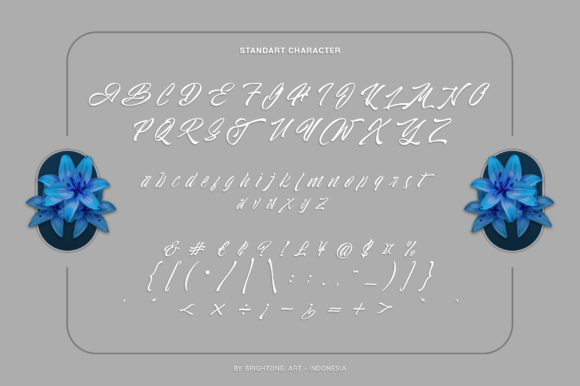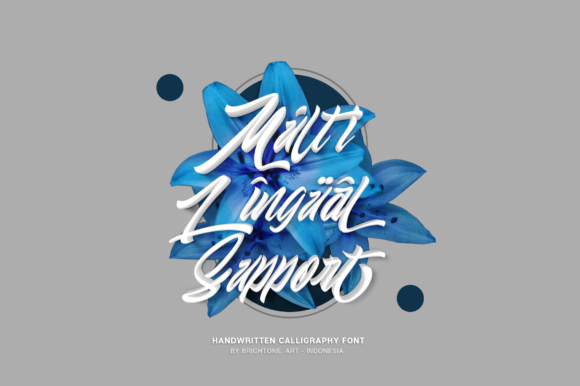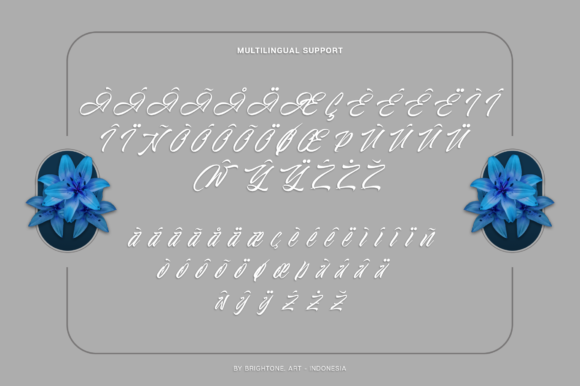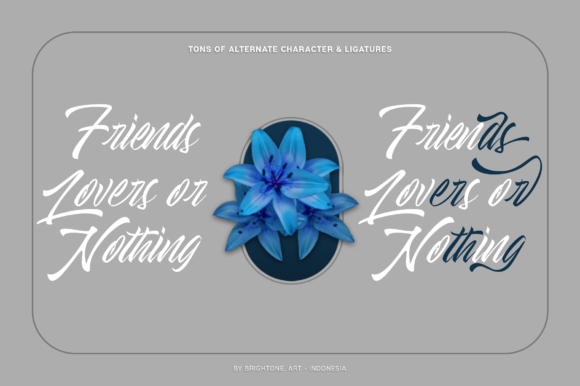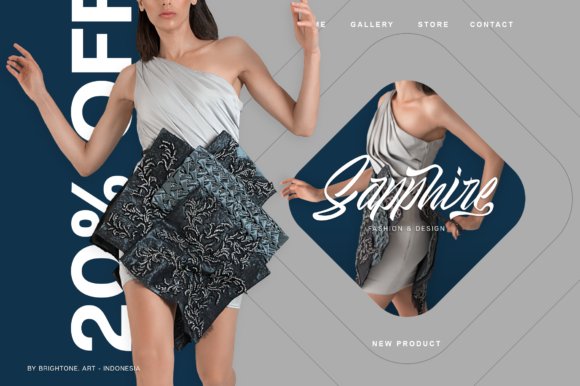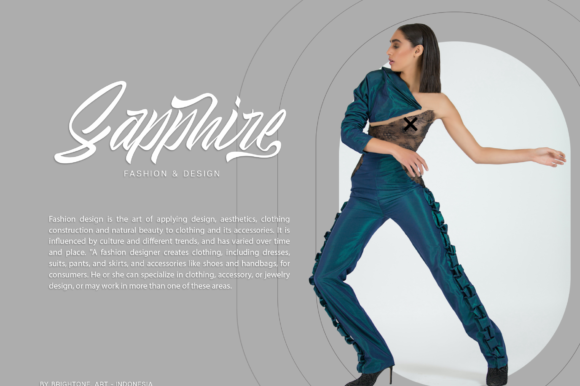
Discover the Elegance of Atlantic Extended Font: Elevate Your Designs with Sophistication
In the world of typography, a font can make or break the aesthetic of a design. For those seeking a script that exudes elegance and sophistication, the Atlantic Extended Font is an exceptional choice. This beautiful script font is not only exquisite and perfectly cursive but also versatile, making it an ideal addition to any designer’s toolkit. Whether you’re working on branding, t-shirt designs, lettering projects, logos, or enhancing your Instagram posts and stories, Atlantic Extended is poised to elevate your creative endeavors.
The Characteristics of Atlantic Extended Font
Atlantic Extended is distinguished by its flowing, cursive script that adds a touch of luxury and refinement to any project. Its elegant strokes and extended letterforms make it perfect for designs that require a sense of grandeur and sophistication. The font’s versatility is one of its most compelling features, allowing it to be used across various mediums, from digital platforms to print materials.
Practical Applications of Atlantic Extended
The applications of Atlantic Extended Font are vast and varied. Here are some of the key areas where this font can make a significant impact:
- Branding: Establish your brand’s identity with a sophisticated and elegant font that communicates luxury and quality.
- T-Shirt Design: Create eye-catching and unique apparel designs that stand out with the distinctive style of Atlantic Extended.
- Lettering Design: Add a personal touch to your lettering projects with the beautiful, cursive script of Atlantic Extended.
- Logo Design: Craft memorable and impactful logos that embody the essence of your brand, using a font that is both elegant and versatile.
- Instagram Posts and Stories: Enhance your social media presence with stylish text that complements your visual content, making your posts and stories more engaging.
The Advantage of PUA Encoding
Atlantic Extended Font comes with the advantage of PUA (Private Use Area) encoding. This feature allows designers to access a wide range of glyphs and swashes easily, providing greater flexibility and creativity in their designs. PUA encoding ensures that users can:
- Easily access and use a variety of glyphs and swashes.
- Customize their designs with unique and intricate details.
- Save time and enhance productivity by having all the necessary elements at their fingertips.
Why Choose Atlantic Extended Font?
Choosing Atlantic Extended Font for your design projects comes with numerous benefits:
- Elegance and Sophistication: The font’s cursive script and extended letterforms add a touch of elegance to any design.
- Versatility: Suitable for a wide range of design applications, from branding and logos to t-shirt designs and social media content.
- Easy to Use: With PUA encoding, accessing glyphs and swashes is straightforward, making the design process more efficient.
- Unique Designs: Stand out from the crowd with a font that offers a distinctive style, perfect for designers looking to create something special.
| Font Name | Atlantic Extended Font |
| Author | brightonexart |
Atlantic Extended Font is a stunning script font that offers designers a powerful tool to add sophistication and elegance to their projects. Its versatility, combined with the practical benefits of PUA encoding, makes it an excellent choice for a wide range of applications. Whether you’re a professional designer or a crafty DIY enthusiast, Atlantic Extended Font has the potential to elevate your designs and help you achieve your creative goals. Explore the possibilities of Atlantic Extended and discover how it can transform your design work into something truly exceptional.